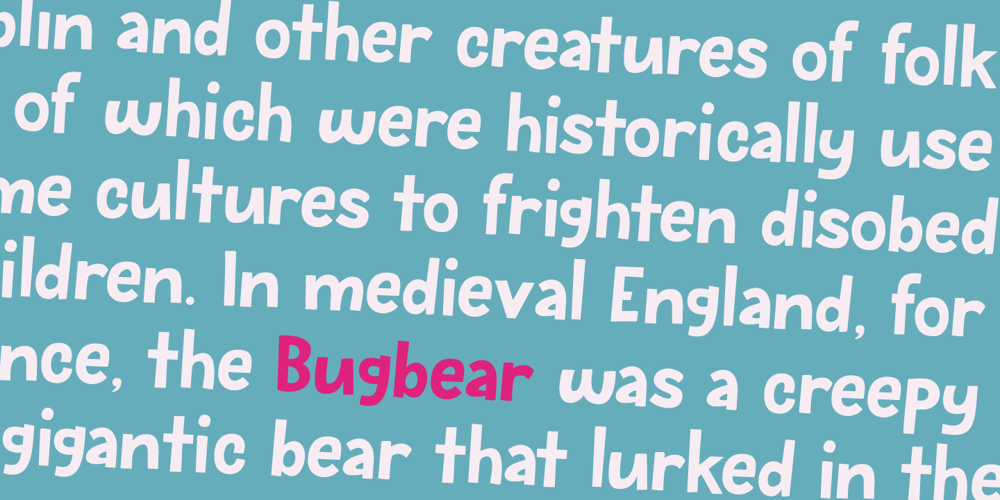
Bugbear Font Family was designed by David Kerkhoff and published by Hanoded. Bugbear contains 2 styles and family package options. A Bugbear is a kind of hobgoblin, comparable to the Bogeyman. No tablets or gizmos were involved in the creation of this font. It was made entirely by hand, using an old-fashioned roller ball pen and a sheet of paper. Use Bugbear for your children’s book covers, party posters and product packaging.